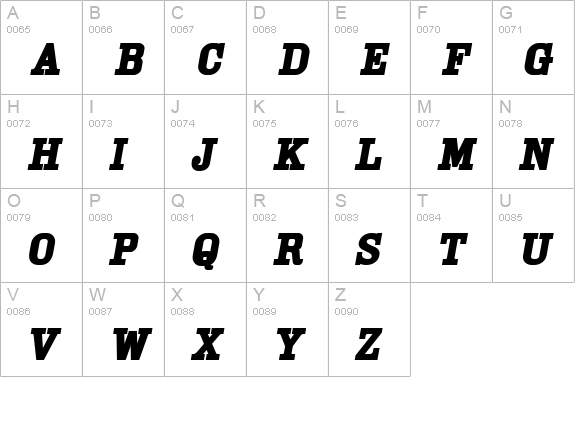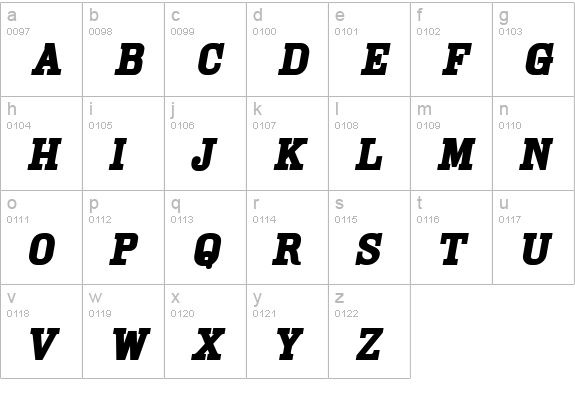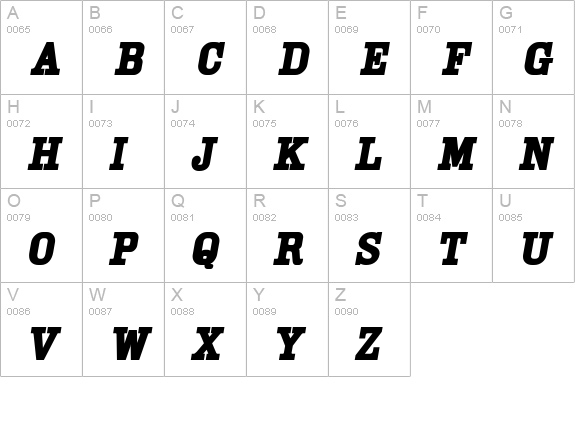
Cam BoldOblique Font Details
Cam BoldOblique is a modern and stylish font that combines boldness with a touch of elegance. Its oblique design adds a dynamic and sophisticated look, making it perfect for a wide range of design projects. Whether you're creating posters, logos, or web graphics, Cam BoldOblique will make a statement with its strong presence. This versatile font is ideal for both headlines and body text, ensuring your message stands out and is easily readable. The sleek lines and unique slant of Cam BoldOblique add a contemporary flair to any design, making it a great choice for projects that require a bold and eye-catching typography. Best of all, Cam BoldOblique is available for free download at FontsMarket.com. So, you can easily access this striking font and enhance your designs without any cost. Don't miss out on the opportunity to elevate your projects with the stylish and impactful Cam BoldOblique font. Download it today and start creating stunning visuals that will captivate your audience.